Best font for programming? If you’ve ever squinted at your screen, misread curly brace as a parenthesis, or struggled with a cluttered code, you know how crucial the right font is. Whether you’re debugging or pushing through a marathon coding sprint, your font selection can make all the difference. So, what is the best font for programming?
Key Takeaways:
- The best programming fonts offer specialized features such as ligatures and customizability,
- Along with speedy coding sessions, these best-tailored fonts can make your coding session errorless and more comfortable.
- Readable fonts are most likely to be chosen because they allow programmers to do their work effectively.
Best Font for Programming: The Popular Choice
There’s a reason certain fonts keep showing up in every developer’s setup. These fonts prevent confusion between similar-looking characters, provide smooth readability even on different screen resolutions, and even include special features. Here are the most popular fonts to speed up your coding journey.
1. Fira Code
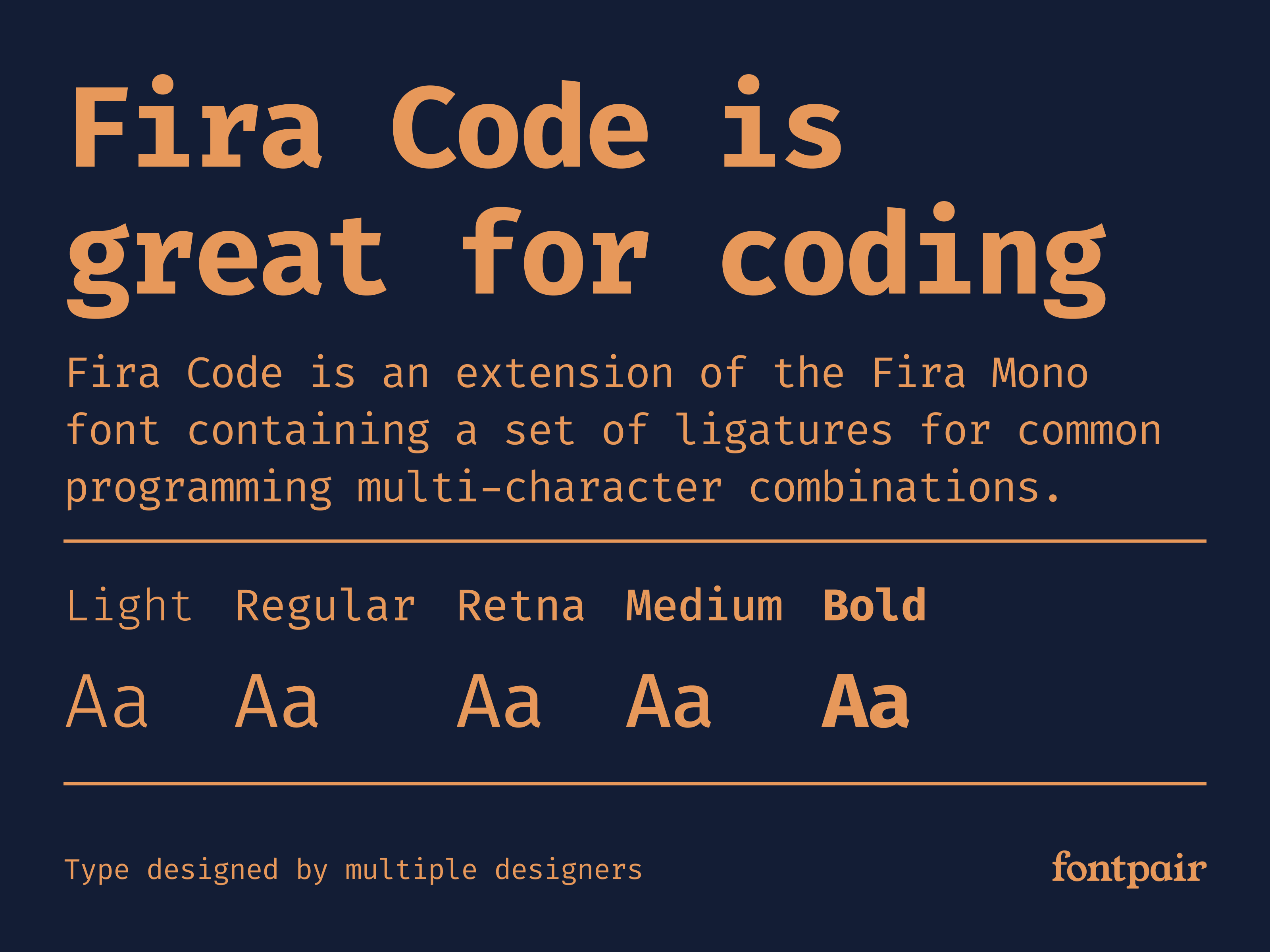
Fira Code is a monospaced font with ligature capabilities to combine multiple symbols into a single symbol for arithmetic operations. Its design prioritizes developer comfort, making it a popular choice.
2. JetBrains Mono
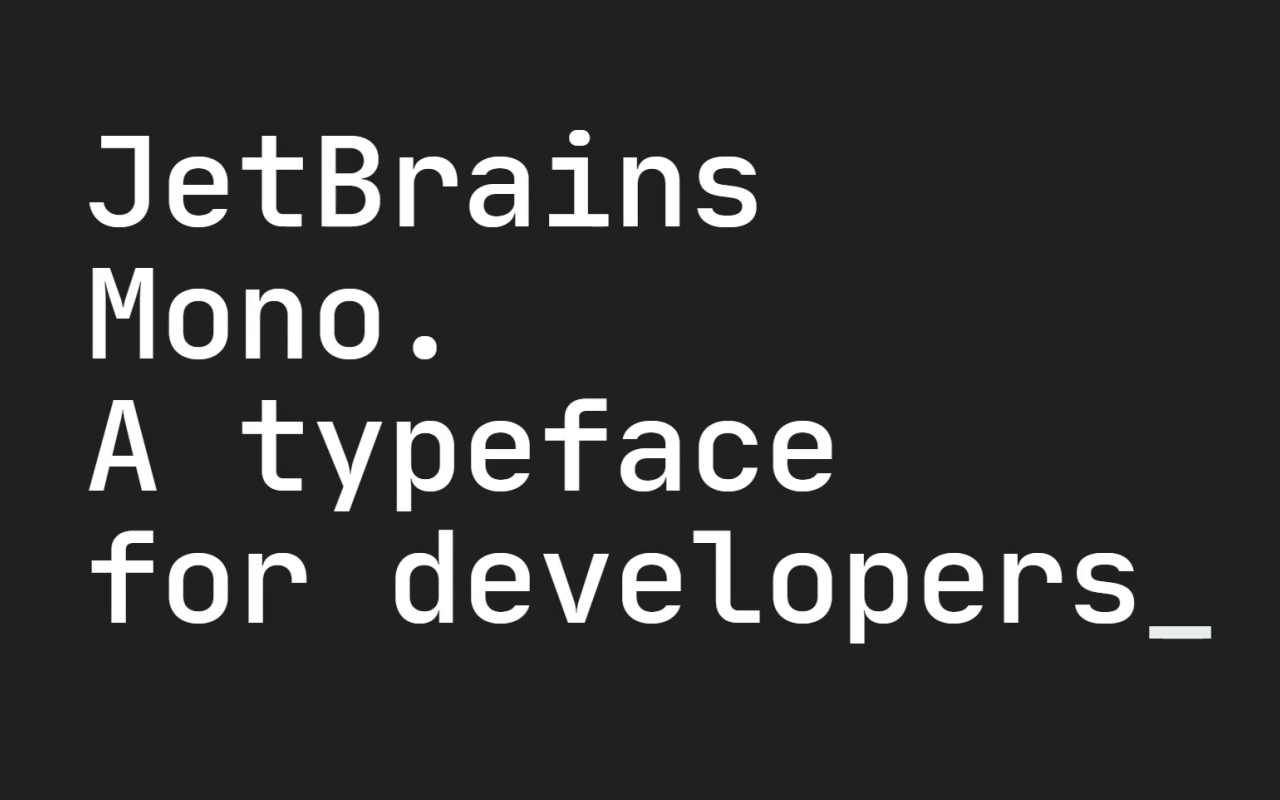
JetBrains Mono excels in reducing eye strain during extended coding sessions. Its carefully thought-out letterforms and spacing improve readability, making it a comfortable, long-term option.
3. Source Code Pro
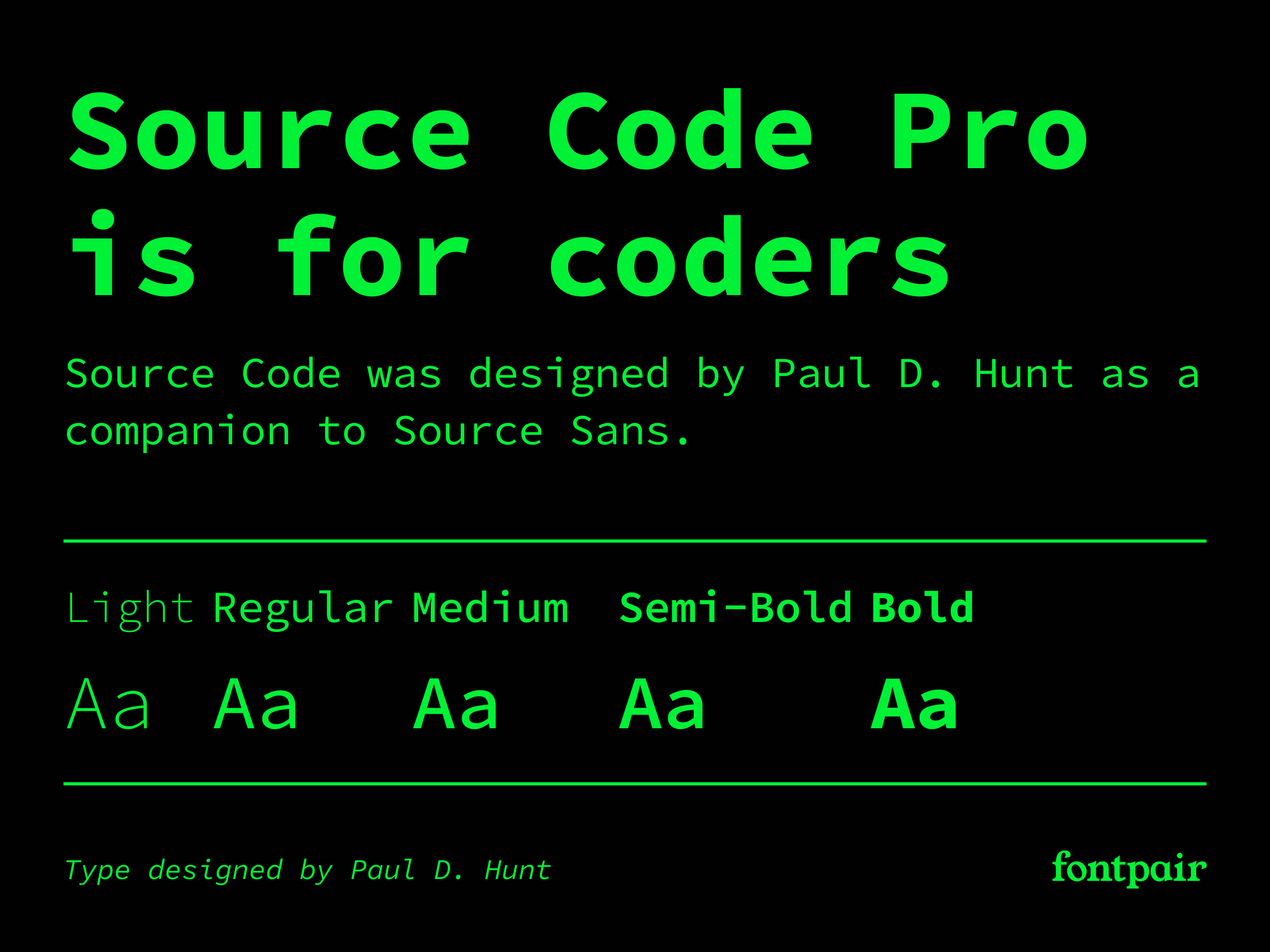
Source Code Pro has clean and geometric letterforms. This font emphasizes clarity at various sizes, especially smaller ones, making it ideal for high-density displays and ensuring the code remains legible.
4. Cascadia Code
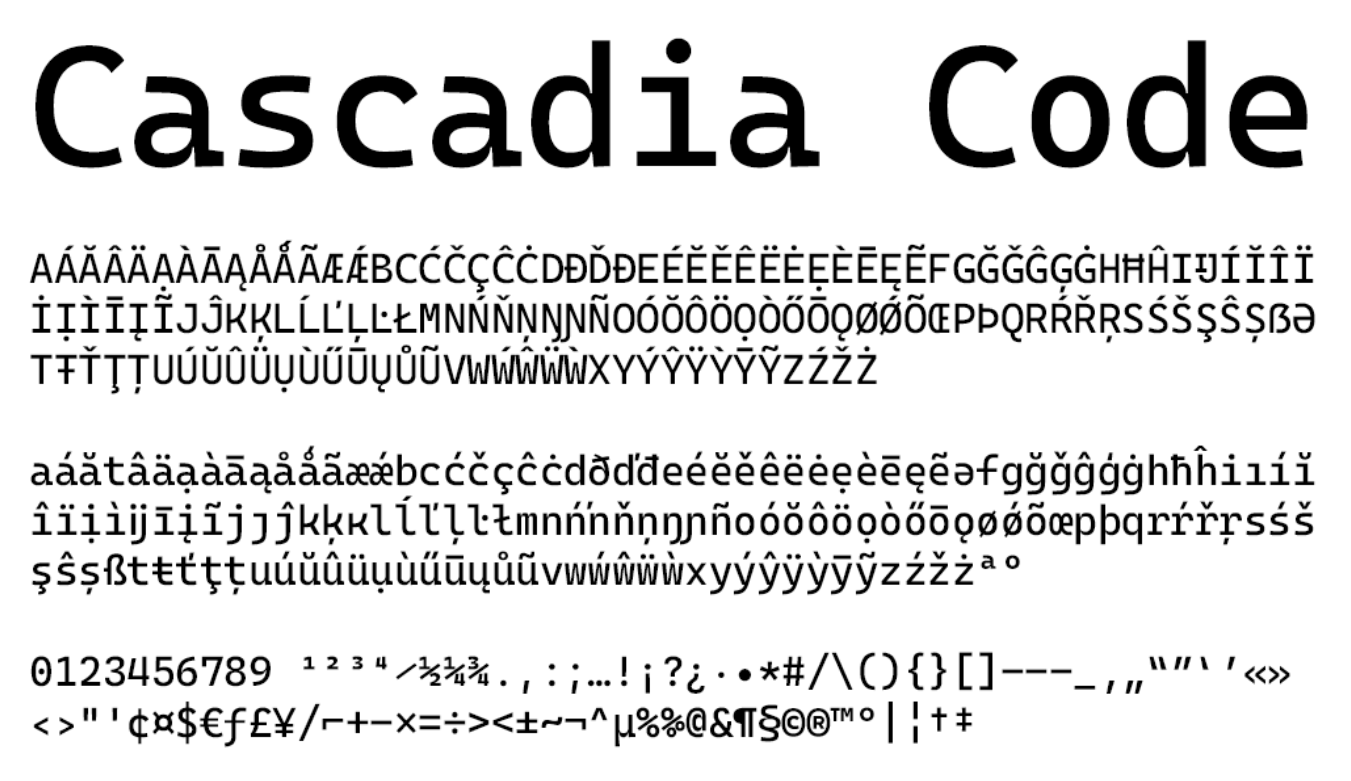
Cascadia Code is created specifically for Windows Terminal. The font has modern monospaced visuals and includes programming ligatures. It is the best font for programming on Windows platforms.
5. IBM Plex Mono
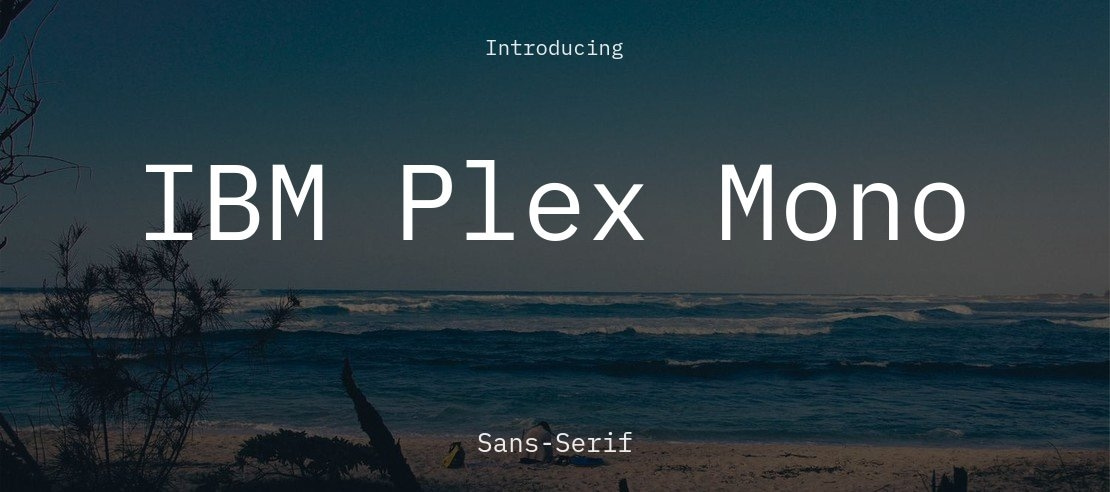
IBM Plex Mono is a part of the IBM Plex family font. Therefore, this font provides a balance between personality and neutrality. Its modern design ensures legibility and pleasant coding experiences without being overly stylized.
6. Hack
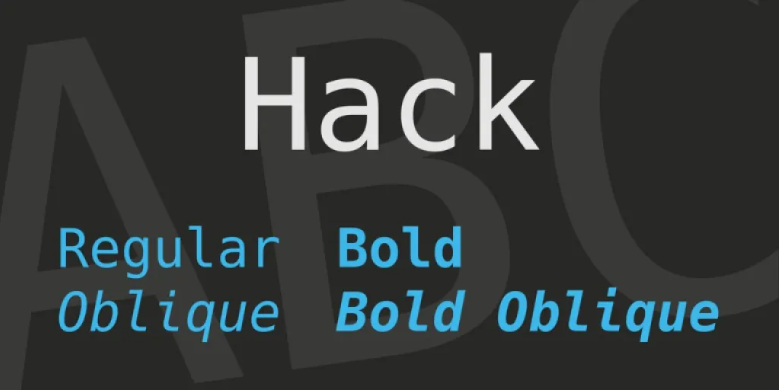
Hack is a free and open-source font that is meticulously made for source code. Its distinctive shapes and characters minimize ambiguity, reducing errors during coding. This focus on differentiation makes it highly practical.
7. Iosevka
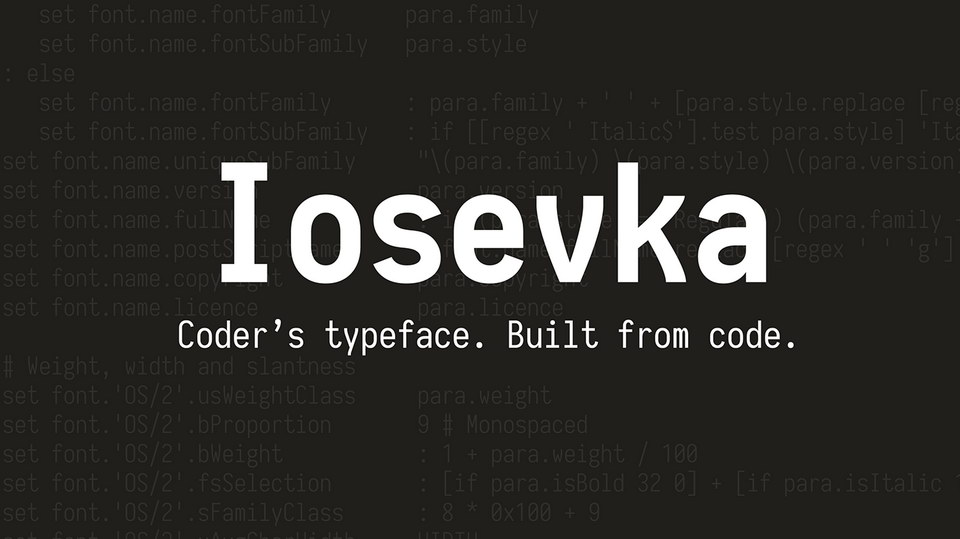
Iosevka is known for its narrow width, allowing coders to fit more code on each line while improving efficiency when working with limited screen space. It is also highly customizable with various weights and styles to fit everyone’s preferences.
8. DejaVu Sans Mono
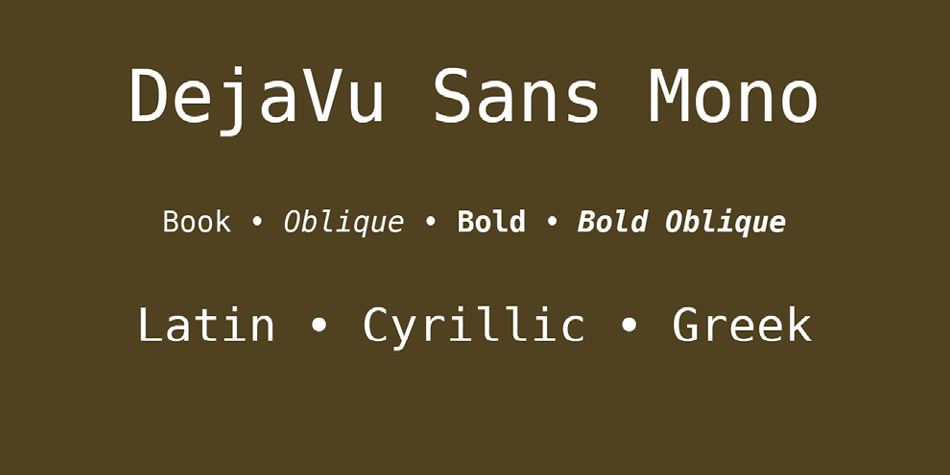
A derivative of the Vera Sans Mono, DejaVu Sans Mono offers broader Unicode coverage. So, it is an excellent choice for devs working with diverse character sets and international languages in their code.
9. Monaspace
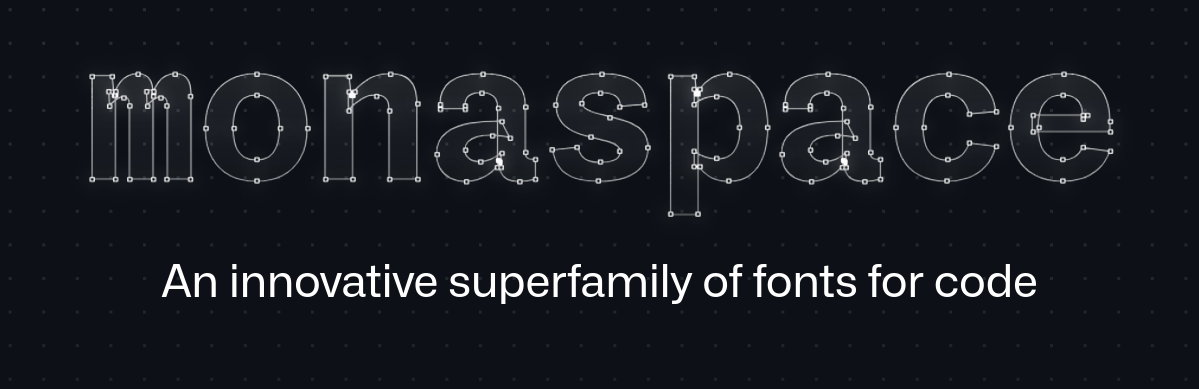
Monaspace is unique due to its variable font technology, which provides developers with the ability to fine-tune its weight, width, and slant. This level of customization allows a truly personalized coding font, optimizing comfort and readability.
10. Ubuntu Mono
Ubuntu Mono is designed to complement the Ubuntu operating system. Its clear and approachable aesthetics make it a comfortable and inviting choice for coding, especially on Linux-based systems.
11. Monaco
Monaco is the classic and simple monospaced font historically associated with macOS. Monaco is known for its straightforward, no-frills design. Its letterforms ensure excellent legibility, making it a reliable choice for programmers.
12. Inconsolata
Inconsolata is celebrated for its exceptional legibility and clean designs, even at smaller sizes. It is the best font for programming among developers who value clarity and visual comfort.
13. Input
Input is a highly customizable font family designed particularly for coding. The font allows developers to adjust its kerning, x-height, and character shapes, ensuring a personalized and optimized coding experience tailored to each individual’s preferences.
14. Hasklig
Hasklig uniquely combines the legibility of a clean monospaced font with special ligatures for Haskell programming. This fusion of form and function improves code clarity and reduces visual noise.
15. Menlo
As a default monospace font in macOS, Menlo offers a clean and modern appearance with excellent readability. Its balanced design and clear letterforms make it a solid choice for coding.
Ready to Switch to the Best Font for Programming?
The most popular fonts have earned their reputation by solving real problems; they offer distinct characters, smooth readability, and smart design features tailored for coding. But this selection proves that they are more of a preference.